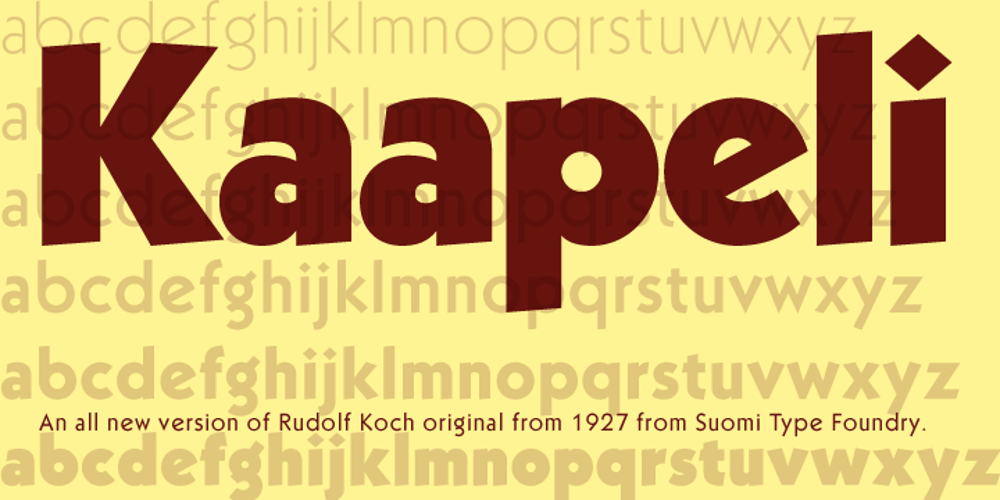
Kaapeli Font Family was designed by Tomi Haaparanta and published by Suomi. Kaapeli contains 6 styles and family package options. I’ve had mixed feelings about Kabel; It is a brilliant headline font with a lot of character, but it’s the characters I have problems with. The versions of all big foundries have the same flaws (in my opinion), especially lowecase a and s. So I finally went ahead and made an all new version. It is not Kabel, but very much like it. It has unique x-height, weight and width, and many individual characters are also different from the original.